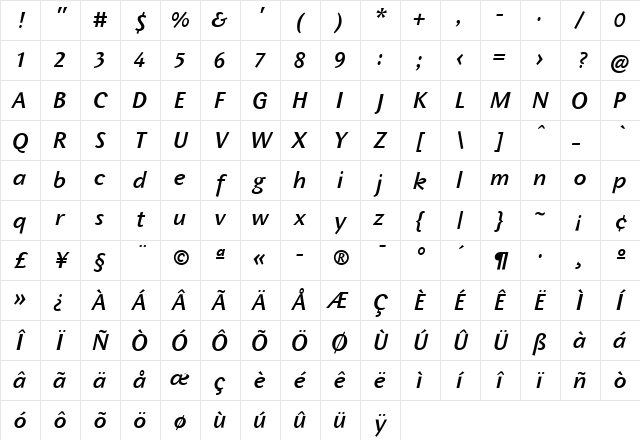
Wunderlich Medium Italic
Foundry: Copr. Martin Wunderlich, FontShop International
Design Context for Wunderlich
Wunderlich is a composed and adaptable typeface that performs quietly and consistently across a wide range of design contexts. The slanted form adds forward momentum and visual energy.
Pro Tip: Use Wunderlich for emphasis, pull quotes, and subheadings where its slanted energy can add rhythm to the layout.
Who designed the Wunderlich Medium Italic font?